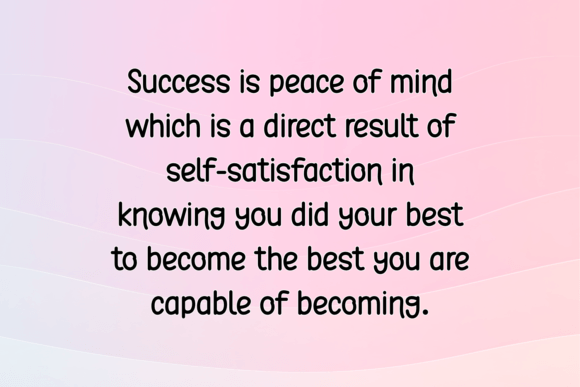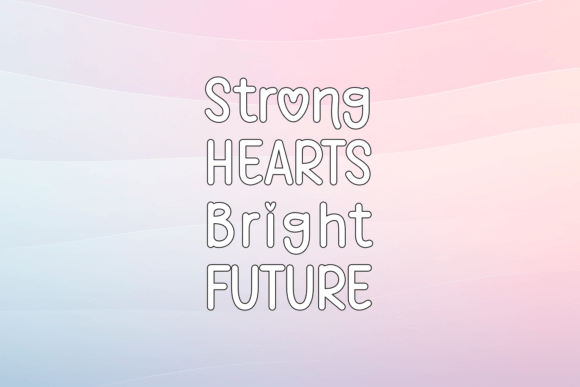
Introducing Always Becoming Font: The Embodiment of Love and Positivity
In the world of typography, few fonts capture the essence of love, warmth, and affection as beautifully as the Always Becoming font. This lovely handwritten font is adorned with heart details, radiating a sense of charm and tenderness that is sure to captivate designers and crafters alike. With its delicate strokes and endearing embellishments, Always Becoming is the perfect choice for projects that evoke feelings of romance, sweetness, and warmth.
The Characteristics of Always Becoming Font
Always Becoming font is a masterful blend of elegance and playfulness. Its handwritten strokes are gentle and fluid, giving the font a personal and intimate feel. The heart details that adorn the letters add a touch of whimsy and romance, making it an ideal choice for projects that require a sense of warmth and affection. The font’s delicate and charming aesthetic makes it perfect for a variety of design applications, from wedding invitations and love notes to greeting cards and branding materials.
Design Applications for Always Becoming Font
Despite its romantic theme, Always Becoming font remains incredibly versatile and adaptable to a variety of design contexts. Here are some of the many ways you can use this beautiful font in your designs:
- Wedding Invitations: Add a touch of romance and elegance to your wedding invitations with Always Becoming font. The font’s delicate strokes and heart details will make your invitations truly special and memorable.
- Love Notes and Greeting Cards: Express your feelings with a personal touch using Always Becoming font. The font’s charming aesthetic makes it perfect for love notes, greeting cards, and other personal correspondence.
- Branding Materials: Add a touch of warmth and personality to your branding materials, such as logos, business cards, and brochures, with Always Becoming font. The font’s unique aesthetic will help your brand stand out and leave a lasting impression.
- Crafting and DIY Projects: Always Becoming font is also perfect for crafters and DIY enthusiasts. Use it to create beautiful journal pages, scrapbook layouts, and other handmade projects that require a personal touch.
Why Choose Always Becoming Font?
With so many fonts available, why choose Always Becoming font for your design projects? Here are just a few reasons why this font stands out:
- Unique Aesthetic: Always Becoming font has a unique and charming aesthetic that will add a touch of warmth and personality to any project.
- Versatility: Despite its romantic theme, Always Becoming font is incredibly versatile and adaptable to a variety of design contexts.
- Ease of Use: The font is easy to read and use, making it perfect for designers and crafters of all skill levels.
- Emotional Connection: Always Becoming font has the power to evoke strong emotions and create a deep connection with your audience.
Tips for Using Always Becoming Font
To get the most out of Always Becoming font, here are a few tips to keep in mind:
- Use it Sparingly: While Always Becoming font is beautiful, it can be overwhelming if used excessively. Use it sparingly to add a touch of elegance and sophistication to your designs.
- Pair it with Other Fonts: Always Becoming font pairs well with other fonts, such as sans-serif fonts, to create a beautiful contrast.
- Experiment with Colors: The font looks stunning in a variety of colors, from soft pastels to rich jewel tones. Experiment with different colors to find the perfect combination for your design.
Always Becoming font is a beautiful and charming handwritten font that captures the essence of love and positivity. With its delicate strokes and endearing embellishments, it’s perfect for projects that evoke feelings of romance, tenderness, and sweetness. Whether you’re a designer or crafter, Always Becoming font is sure to become a favorite in your collection. So why not give it a try and see the magic it can bring to your designs?